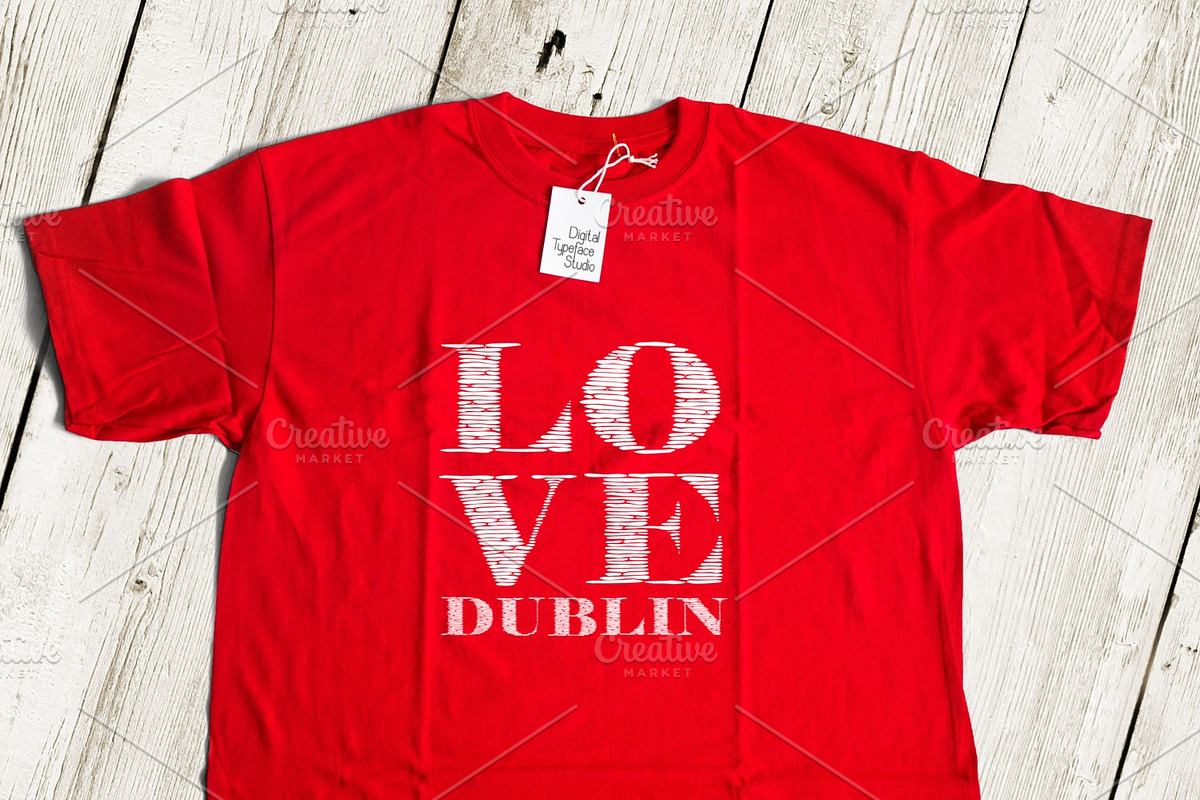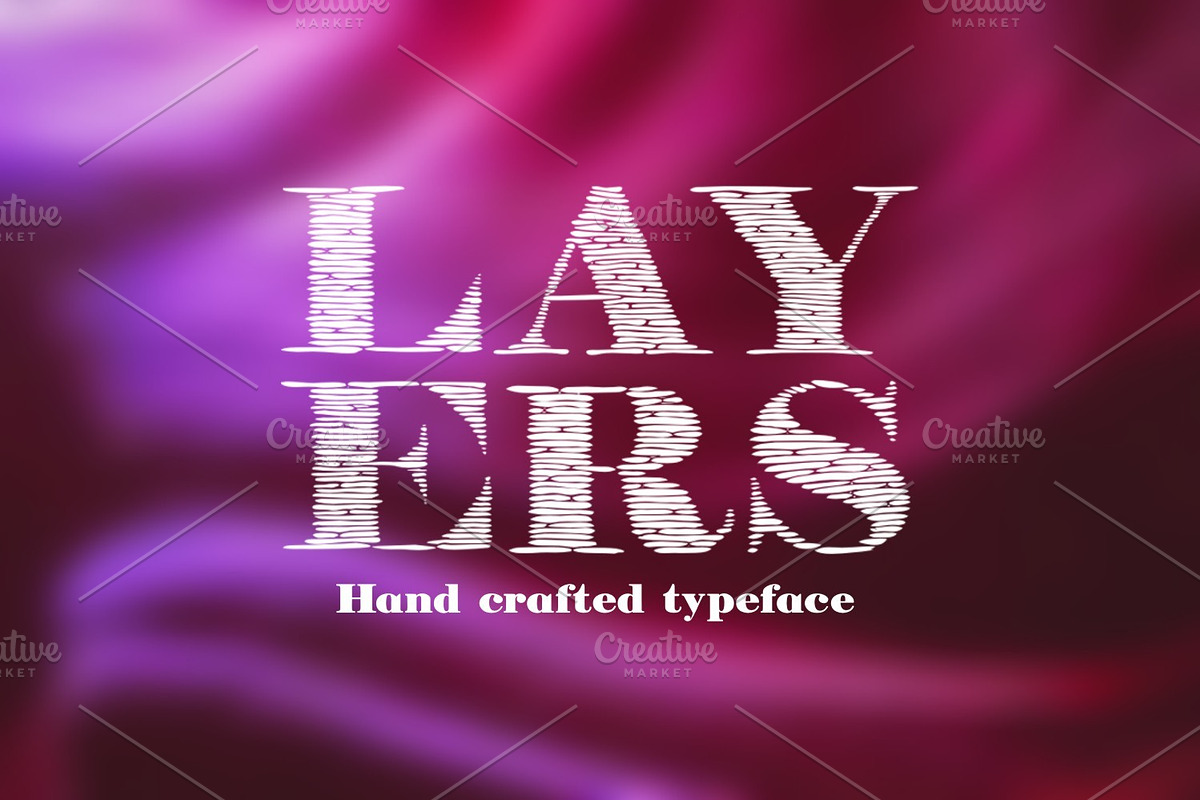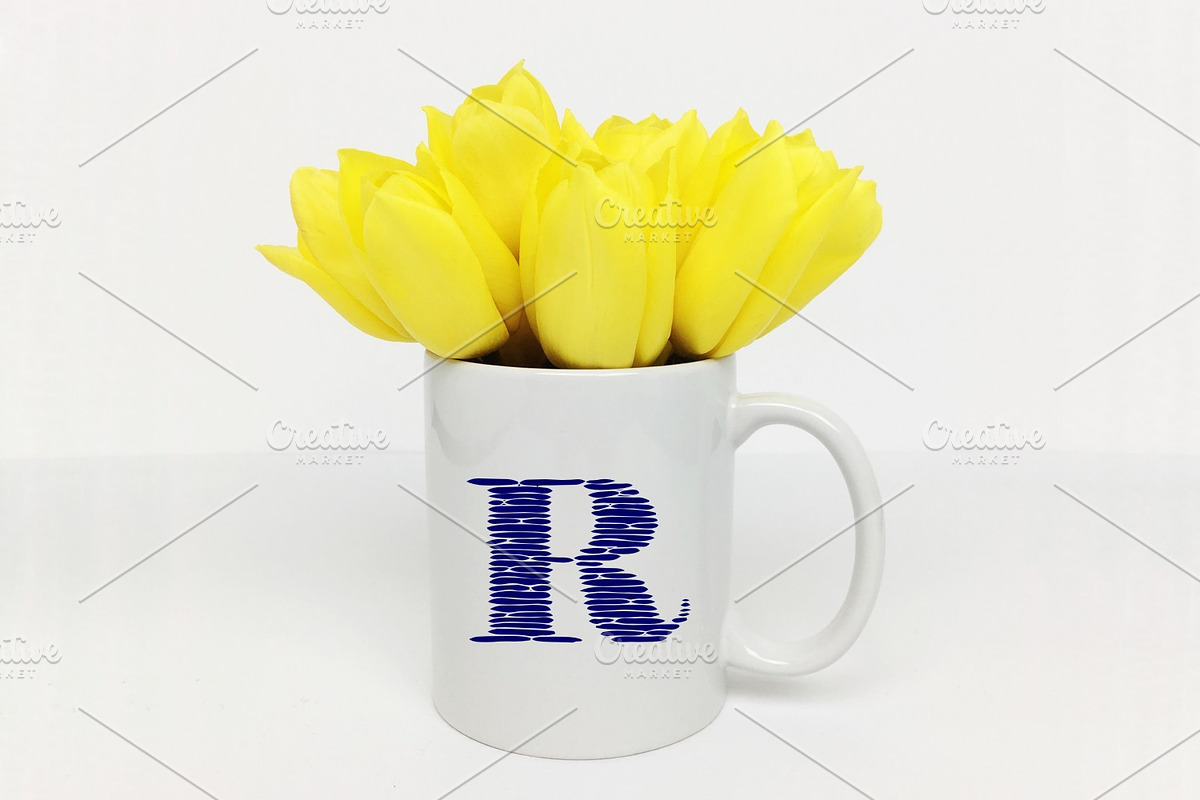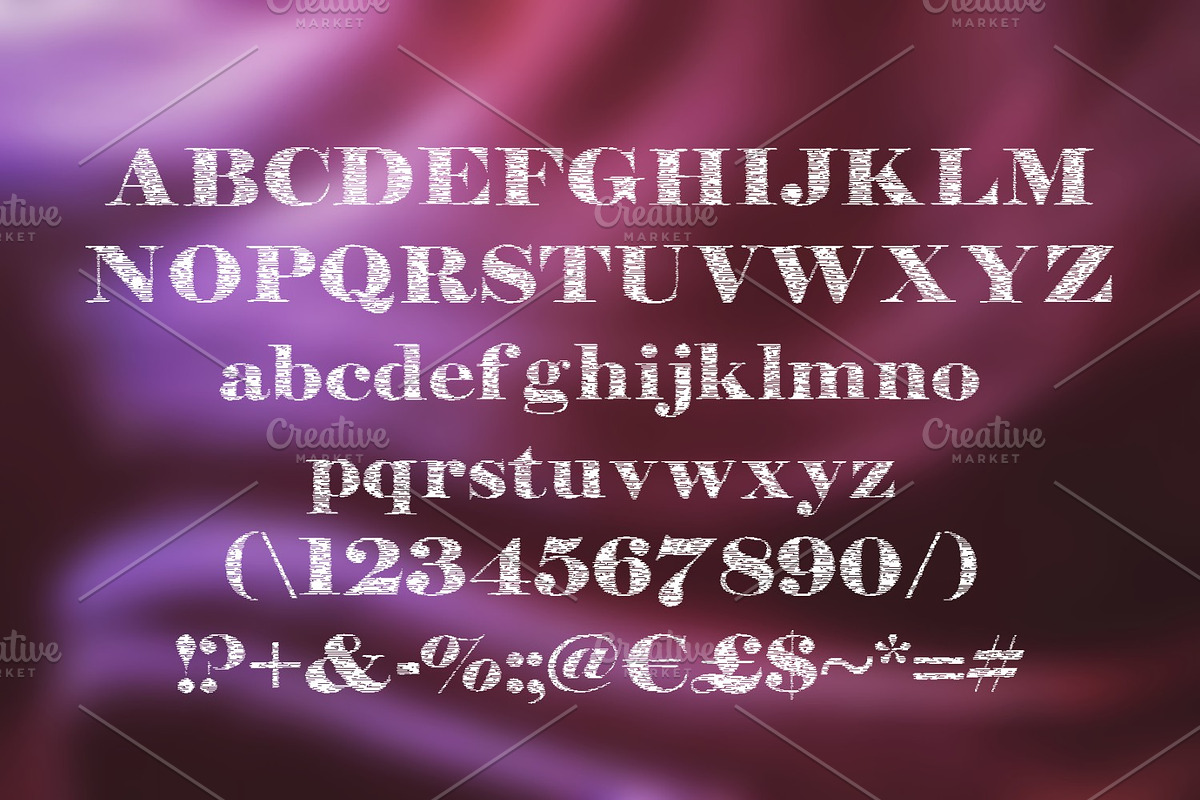
Layers
Introducing Layers hand crafted typeface. Download and use across a huge range of programs such as Adobe programs, Corel programs and many others!
Layers by Digital Typeface Studio fits naturally into Branding, posters, packaging, typography.